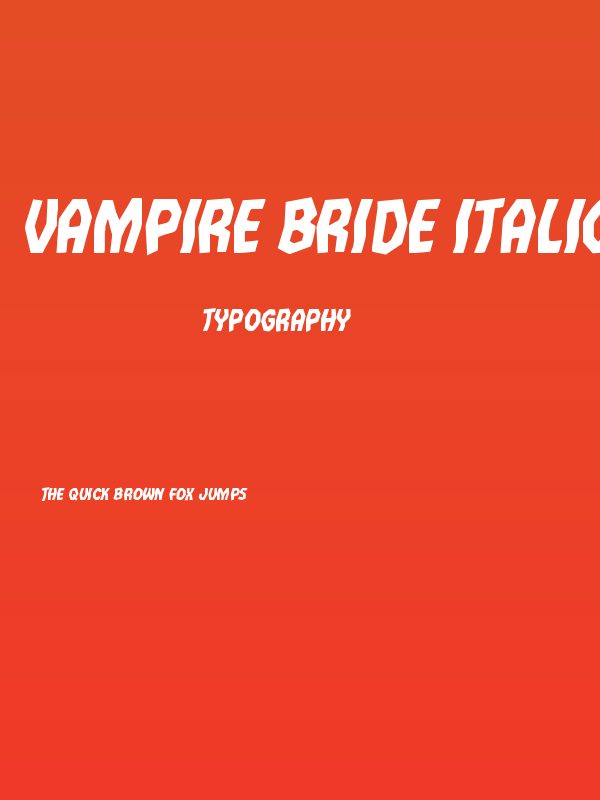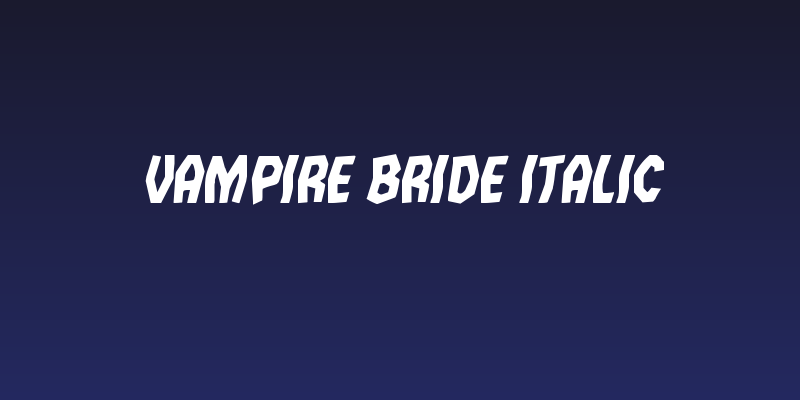
Vampire Bride Italic Font
Vampire Bride Italic Description
This font features a bold and dynamic style with a distinct italic slant, giving it a sense of movement and energy. The characters are thick and angular, with sharp edges and a slightly irregular form that adds a touch of edginess. The uppercase and lowercase letters maintain a consistent style, while the numerals and special characters complement the overall design. The font's unique appearance makes it stand out, making it suitable for attention-grabbing designs.
| Proposed Projects | Ideal for horror-themed posters, Halloween invitations, edgy branding, and video game titles. |